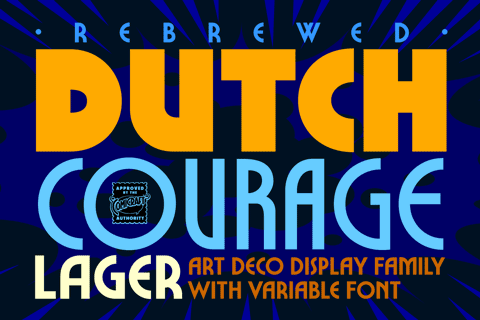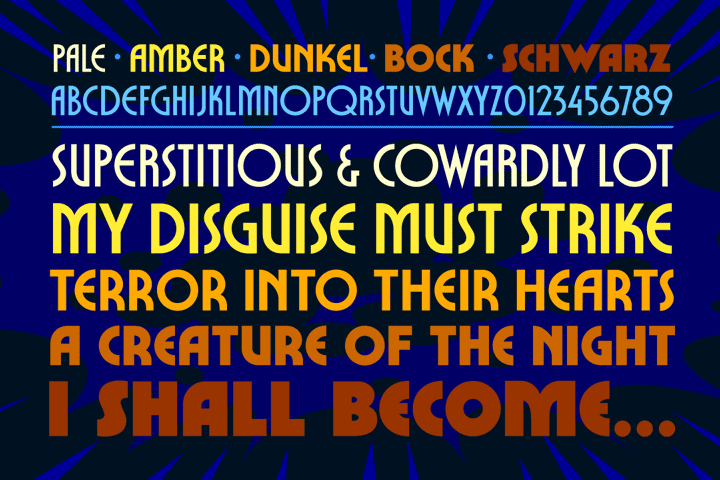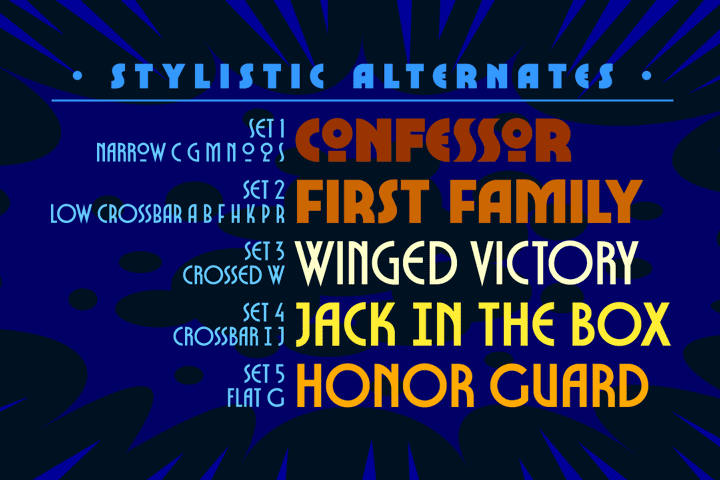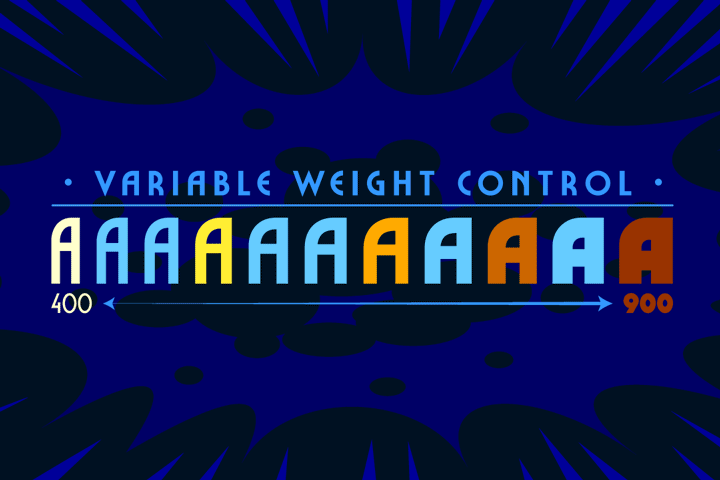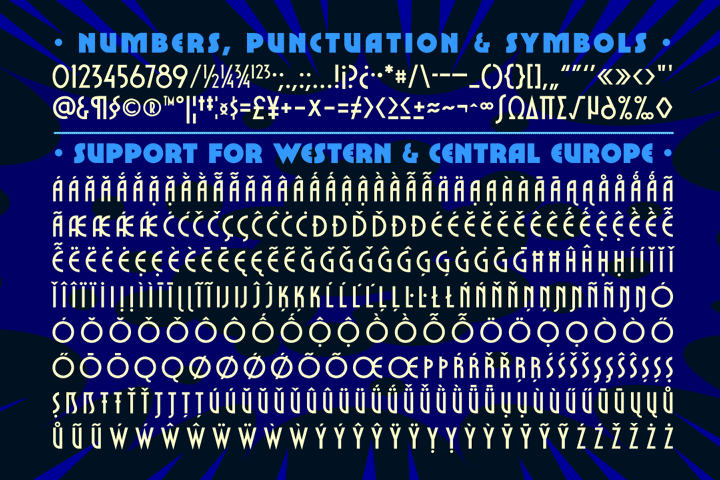
Dutch Courage Lager
Citizens of Astro City, the time has come! Comicraft’s Dutch Masters have remastered the fonts which lend Kurt Busiek’s ASTRO CITY from Image Comics its Classic Clean typographical style. You can’t say Astro City and Art Deco in the same sentence unless it’s typeset with Dutch Courage’s bold geometric shapes, streamlined forms, and optimistic letters!
Dutch Courage Lager has a round, 1970s feel with weights from “Pale” to “Schwarz” and a variable font to select any point between. Each family includes four sets of stylistic alternates—it’s a barrelful of delicious options!
Pale
Amber
Dunkel
Bock
Schwarz
Five weights with alternate uppercase
Plus: Stylistic alternates and Variable font with Weight axis